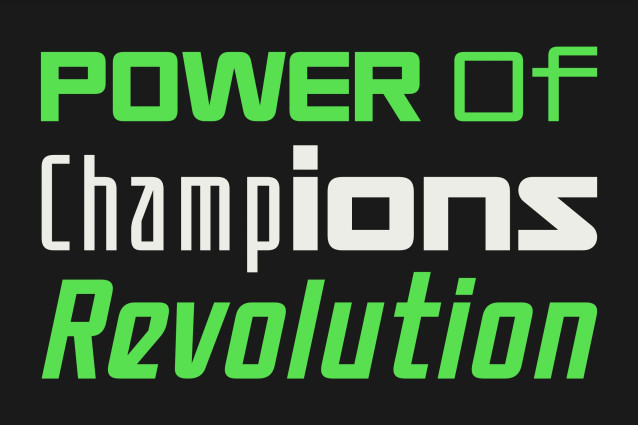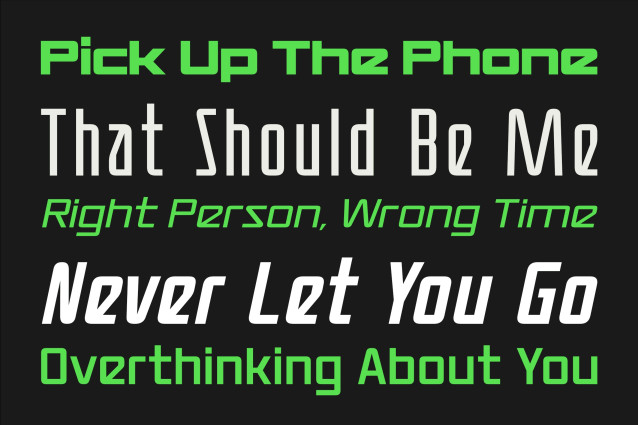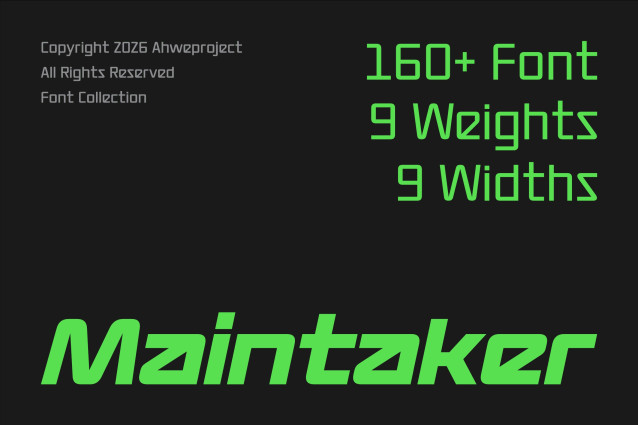
Maintaker Font
Maintaker Font a powerful futuristic font family built for creators who want bold, modern, and high-impact visuals.With 160+ styles, including 9 weights and 9 widths, Maintaker gives you full control to craft anything from sleek minimal layouts to aggressive, tech-inspired branding.